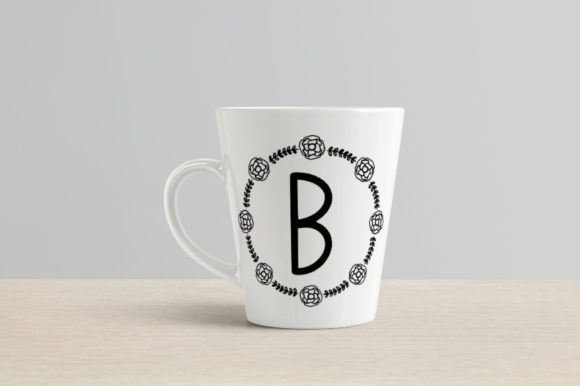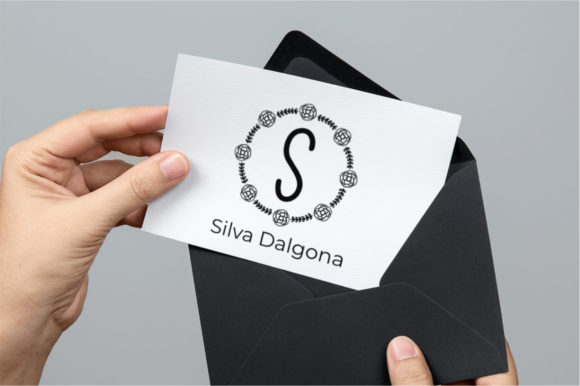
Introduction to Botanical Monogram Font
Have you ever found yourself in the midst of a creative project, searching for the perfect font to elevate your design? It’s that moment when the entire project comes together, and you can’t help but feel a sense of excitement and satisfaction. For designers and crafters alike, finding the right font can be the difference between a good project and a great one.
Enter the enchanting Botanical Monogram Font, a charming decorative font that’s sure to capture the hearts of designers and crafters. This beautiful font features an authentic feel that’s reminiscent of nature, making it perfect for creating gorgeous invitations, beautiful stationery art, and eye-catching social media posts.
Key Features of Botanical Monogram Font
- Unique blend of botanical and monogram elements, perfect for creative projects that require a touch of elegance and sophistication.
- High-quality design with crisp lines and detailed illustrations, ideal for printing and digital use.
Honest Review: Botanical Monogram Font
I recently stumbled upon the Botanical Monogram Font and I must say it’s a gem for any creative project. As a designer, I’m always on the lookout for unique and high-quality design resources, and this font definitely delivers.
- ✨ The font’s intricate details and delicate illustrations make it perfect for watercolor or hand-painted designs.
- ⚠️ The font may not be suitable for bold or modern designs, as its delicate nature may get lost in the mix.
Overall, I’m impressed with the Botanical Monogram Font’s unique character and versatility. While it may have some limitations, it’s a valuable addition to any designer’s toolkit, especially for creative projects that require a touch of elegance and sophistication.